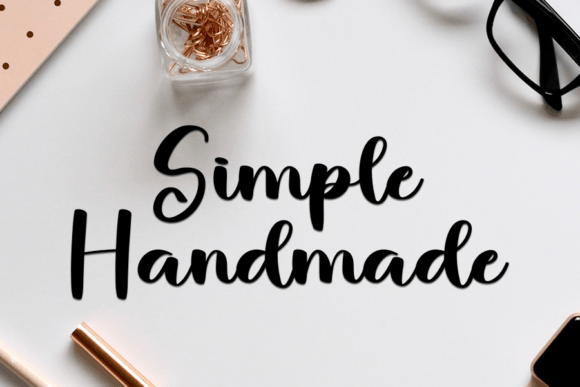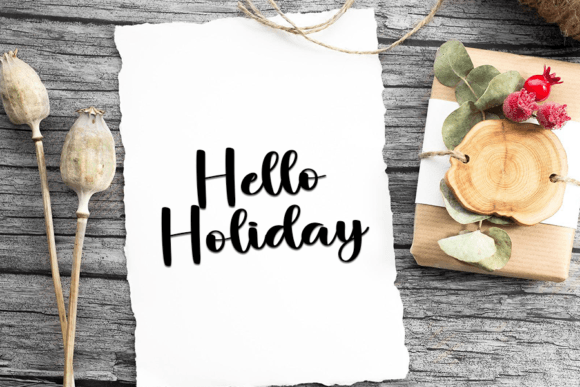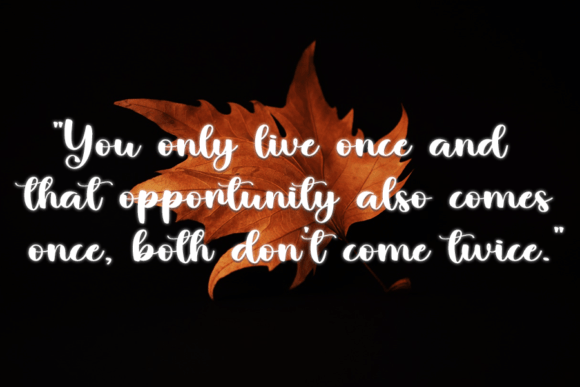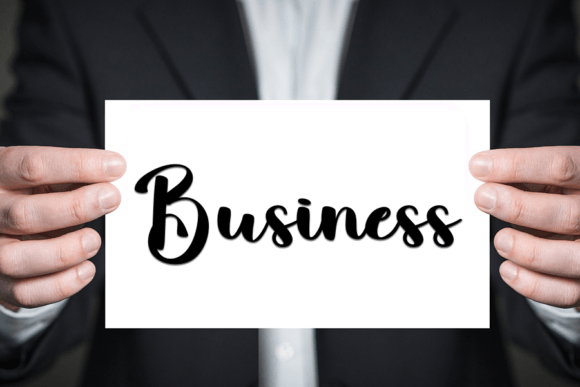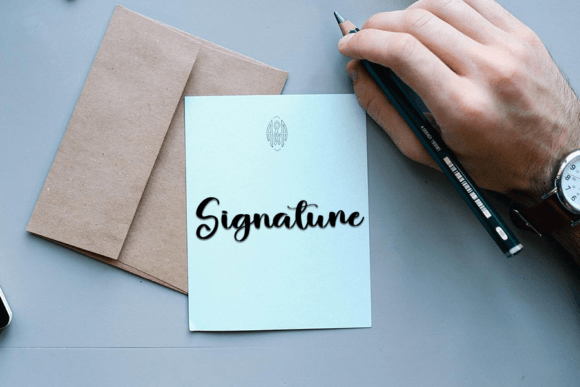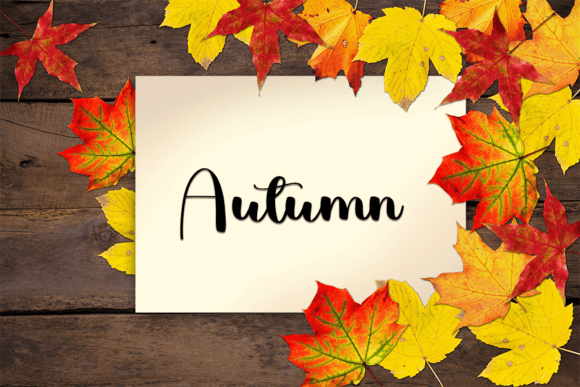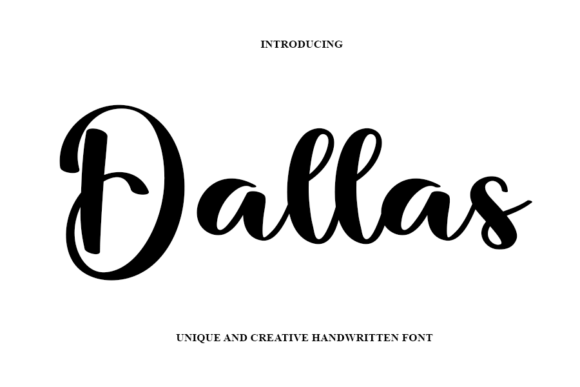
Dallas Font: Elevate Your Design with a Delicate Handwritten Touch
In the world of typography, fonts play a crucial role in conveying the tone and personality of a design. For those seeking a cool and unique aesthetic, the Dallas Font is an excellent choice. This delicate handwritten font is carefully crafted to add a touch of elegance and sophistication to various design projects. In this article, we’ll explore the features and uses of the Dallas Font, making it a must-read for designers and crafters alike.
What is Dallas Font?
Dallas Font is a beautiful, handwritten typeface designed to bring a personal touch to your designs. Its delicate strokes and unique letterforms make it perfect for creating visually appealing text. The font’s careful craftsmanship ensures that it looks great in various sizes and resolutions, making it versatile for different applications.
Key Features of Dallas Font
- Handwritten style: Dallas Font boasts a genuine handwritten look, adding warmth and personality to your designs.
- Delicate strokes: The font’s thin strokes create a sense of elegance, making it suitable for designs that require a touch of sophistication.
- Unique letterforms: Each letter in the Dallas Font is carefully designed to stand out, ensuring your text looks fresh and exciting.
- Versatile: This font can be used for various design projects, from letters and invitations to food products, titles, and more.
Uses of Dallas Font
The Dallas Font’s versatility makes it an excellent choice for a wide range of design projects. Here are some ideas to get you started:
- Invitations and greeting cards: Add a personal touch to your invitations and greeting cards with the Dallas Font’s elegant handwritten style.
- Food and product branding: Use the Dallas Font to create unique and eye-catching labels for food products, craft items, or other goods.
- Titles and headings: Elevate your blog posts, articles, or website titles with the Dallas Font’s delicate and sophisticated look.
- Stationery and journals: Create beautiful stationery, journals, or notebooks with the Dallas Font as the primary typeface.
Why Choose Dallas Font?
With so many fonts available, why choose the Dallas Font? Here are a few compelling reasons:
- Unique and distinctive: The Dallas Font’s handwritten style sets it apart from more traditional fonts, ensuring your designs stand out.
- Elegant and sophisticated: The font’s delicate strokes and unique letterforms add a touch of elegance to your designs.
- Easy to read: Despite its delicate nature, the Dallas Font remains highly legible, making it perfect for body text or headings.
Tips for Using Dallas Font Effectively
To get the most out of the Dallas Font, follow these tips:
- Pair with complementary fonts: Combine the Dallas Font with other fonts that complement its style to create visually appealing text.
- Experiment with sizes and colors: Play with different font sizes and colors to add depth and interest to your designs.
- Use for headlines and titles: Take advantage of the Dallas Font’s unique style by using it for headlines, titles, or section headings.
In conclusion, the Dallas Font is a beautiful, delicate handwritten font perfect for designers and crafters seeking a cool and unique aesthetic. Its versatility, elegance, and sophistication make it an excellent choice for various design projects. By incorporating the Dallas Font into your designs, you’ll add a personal touch that sets your work apart. So why not give it a try and see how this stunning font can elevate your designs?